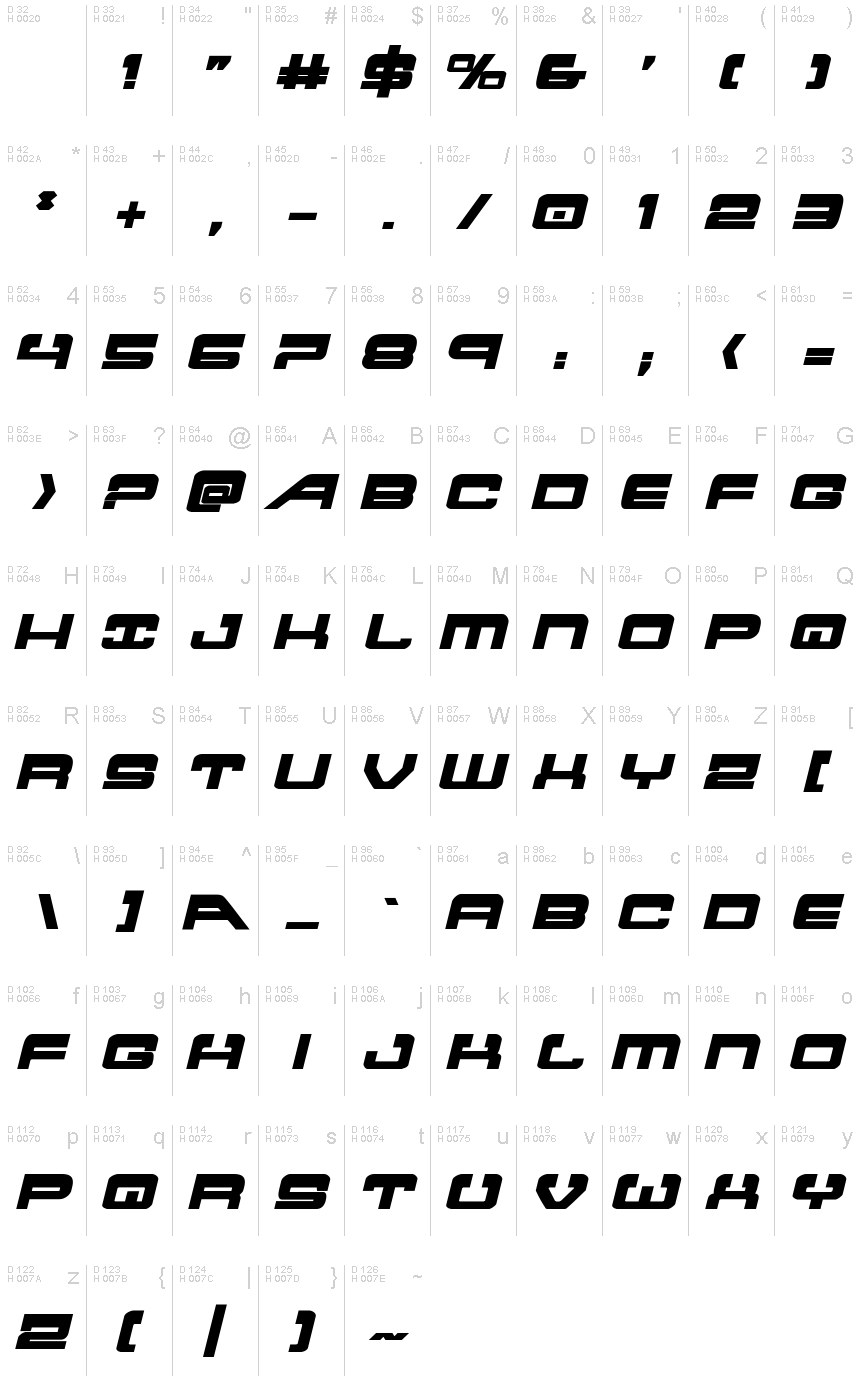
Atlantia Bold Semi-Italic
Atlantia Bold Semi-Italic is a striking display font that embodies a futuristic aesthetic, making it an exceptional choice for bold expressions in design. Its expansive form and assertive weight create a commanding presence, drawing the eye effortlessly across any medium. The semi-italic styling adds a dynamic flair, suggesting movement and innovation, making this font ideal for capturing attention in promotional materials, tech branding, or avant-garde artwork.
Whether used for headlines or graphic designs, Atlantia exudes modernity and creativity. It evokes a sense of progressiveness that resonates with audiences looking for fresh perspectives. Its unique characteristics ensure it stands out in digital and print formats alike, making it versatile enough to elevate everything from logos to posters with its captivating allure.